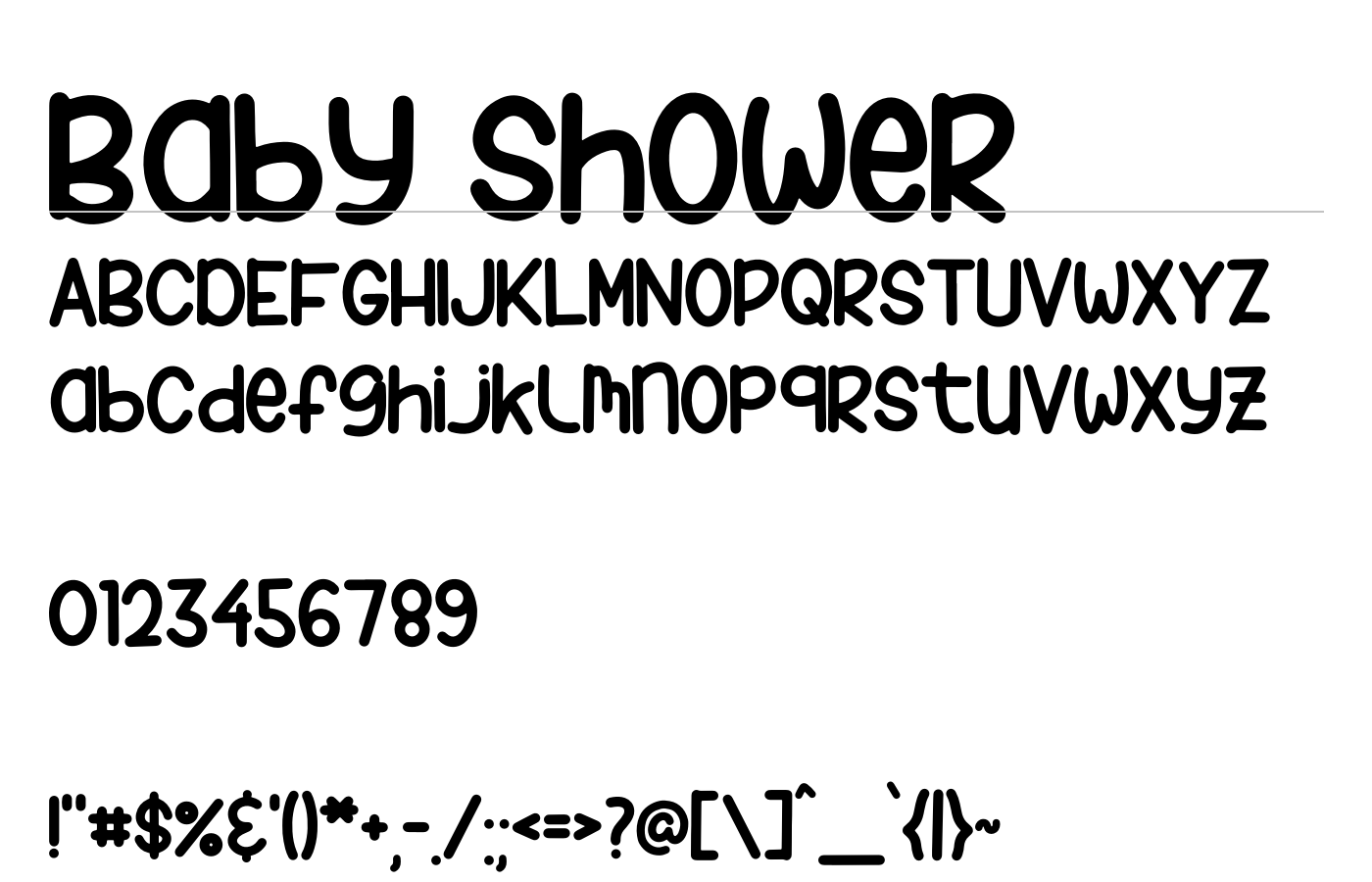
Baby Shower is a playful and friendly sans serif font with a casual handwritten style, featuring round, soft letterforms and a moderate x-height. Its even-weight strokes and open shapes give it a warm, approachable feel, making it perfect for informal, cheerful designs like children's invitations, party announcements, or lighthearted branding. This font works best in headlines or short texts where its joyful personality can shine without sacrificing readability.
Baby Shower Font
About Baby Shower Font